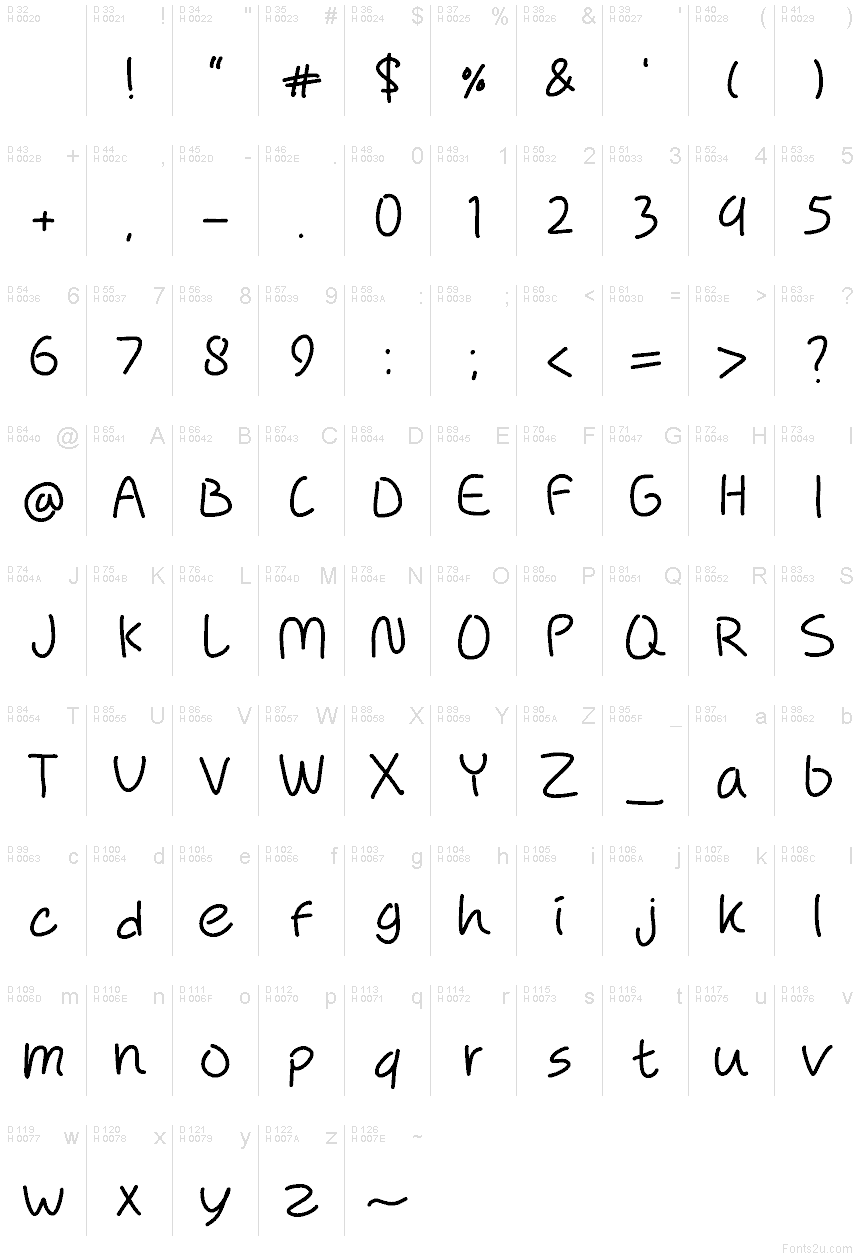
Mustika Flower
Mustika Flower font by Origin Type is a free handwritten font that impresses with its modern appeal. It has a casual appearance with an organic flow and smooth edges. The relaxed mood can be clearly sensed through the font’s rounded letter shapes and balanced height.
Use Mustika Flower to create playful logotypes, brand names, packaging designs, greeting care messages, product labels, headings for magazines and posters among other artwork. The font is a great online and offline use; websites including blogs should often take advantage of it!